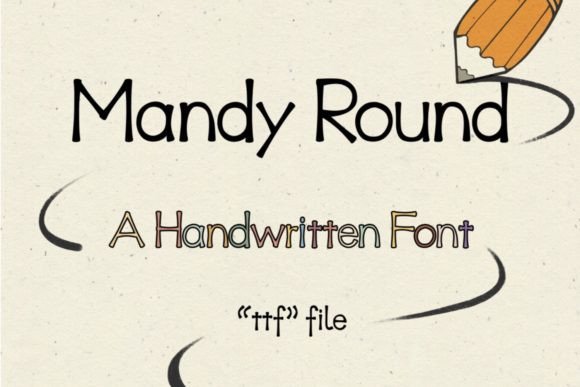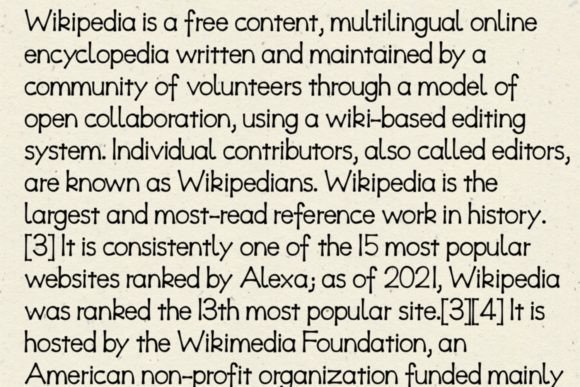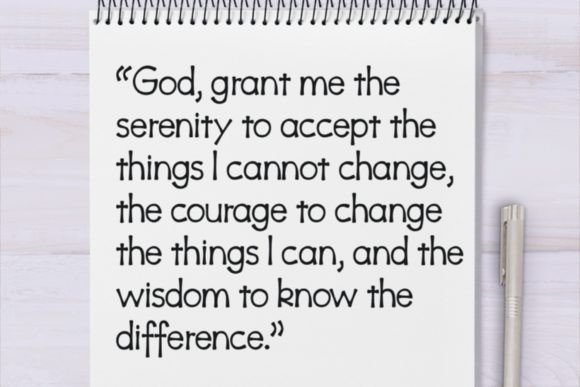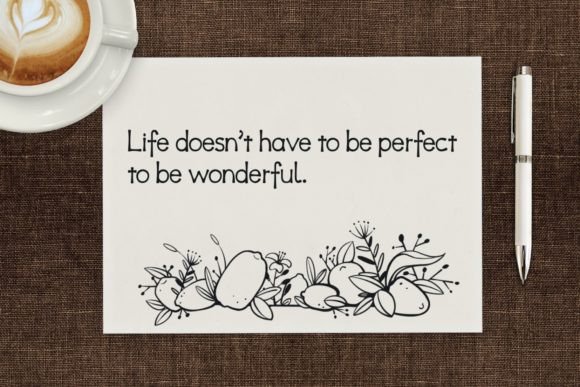
Mandy Round Font
A Fun and Versatile Handwritten Font
The Mandy Round Font is a fun and versatile handwritten typeface that brings a playful touch to any project. Whether you’re working on crafts, digital designs, presentations, or creating greeting cards, this font is designed to add personality and charm to your work. Its round, smooth strokes make it an excellent choice for any creative endeavor, ensuring your designs stand out with ease.
Perfect for Crafts and DIY Projects
If you’re working on crafts or DIY projects, the Mandy Round Font is an excellent choice. Its casual and inviting design adds a personal touch to everything from scrapbooks and postcards to decorative signage. Whether you’re making custom greeting cards or wall art, this font will bring a unique, handmade feel to your creations, making them truly one-of-a-kind.
Great for Digital Design and Presentations
For digital design and presentations, the Mandy Round Font is perfect for adding a friendly, approachable look to your content. Whether you’re creating website graphics, social media posts, slideshows, or online ads, this font gives your digital materials a fun, easy-to-read appearance that captures attention without being overwhelming. Its versatile style ensures it pairs well with both large text and smaller details.
Ideal for Greeting Cards and Invitations
The Mandy Round Font is also great for creating greeting cards, invitations, and thank you notes. Whether you’re designing for a birthday, holiday, or special event, this font adds a joyful and personalized touch to your designs. Its handwritten aesthetic ensures your cards feel warm and inviting, perfect for sending messages of celebration, gratitude, or love.
Great for Branding and Marketing Materials
For branding and marketing materials, the Mandy Round Font can help create a distinctive and friendly brand identity. Whether you’re working on a logo, product packaging, or advertising materials, this font brings a fun and creative element to your designs. Its playful yet professional appearance makes it perfect for brands that want to appear approachable, fun, and unique.
Fun, Playful, and Legible
Despite its fun and playful nature, the Mandy Round Font remains legible and easy to read. Its smooth, round strokes ensure that your text is clear, even when used for longer passages or small text sizes. Whether you’re using it for headlines, captions, or body text, this font balances creativity and readability, making it suitable for various design needs.
Add Playfulness and Charm to Your Designs with Mandy Round Font
If you’re looking for a fun, versatile, and playful handwritten font to enhance your designs, the Mandy Round Font is the perfect choice. Whether you’re working on greeting cards, logos, branding materials, or social media posts, this font brings a lighthearted, charming touch to your work. Let the Mandy Round Font be your go-to font for any project and create memorable, creative designs that stand out.